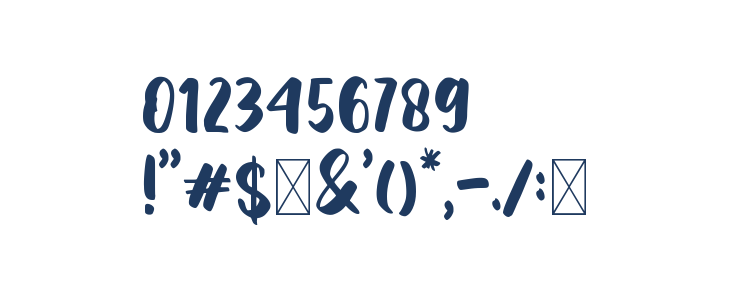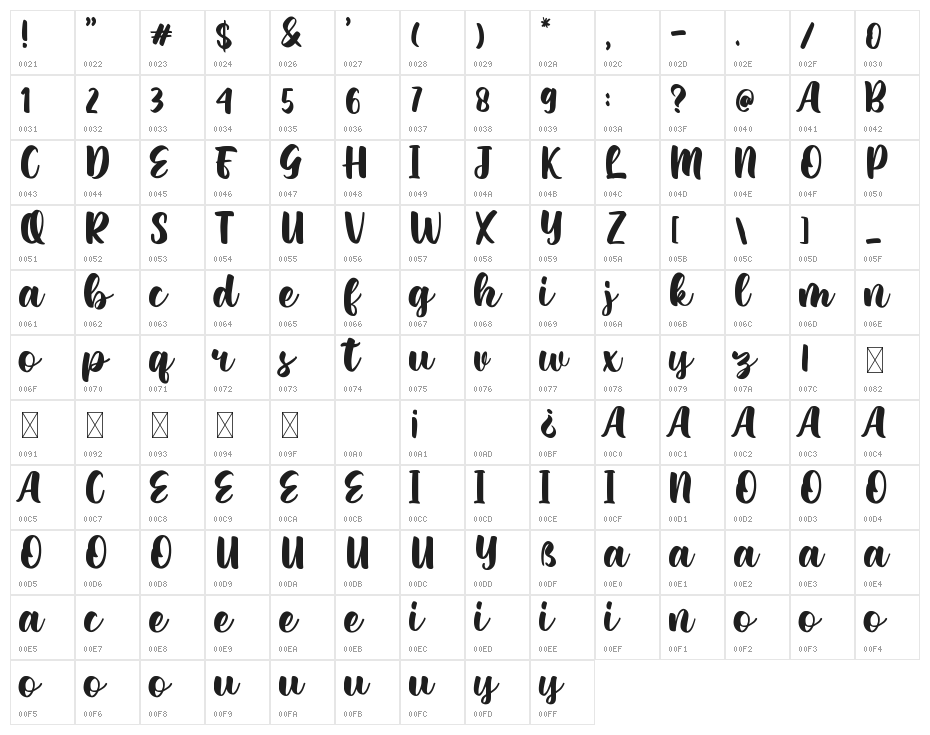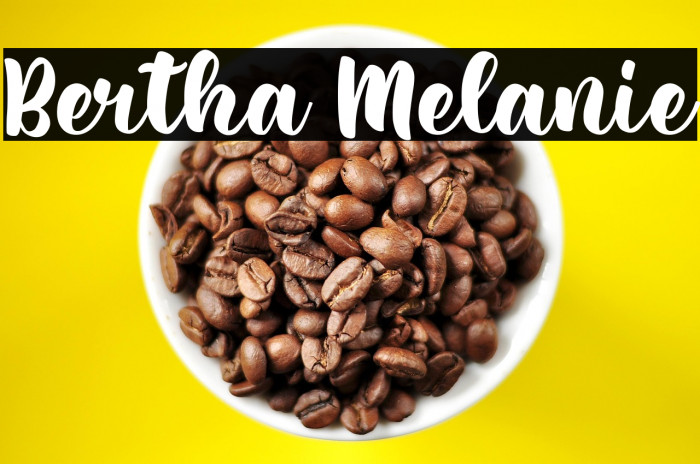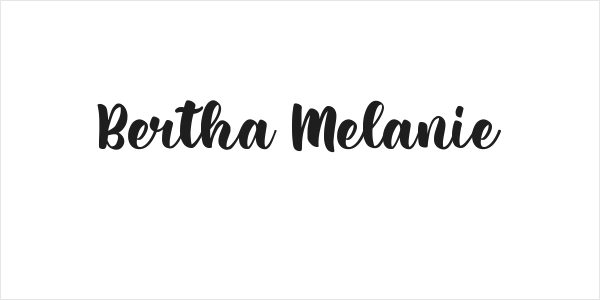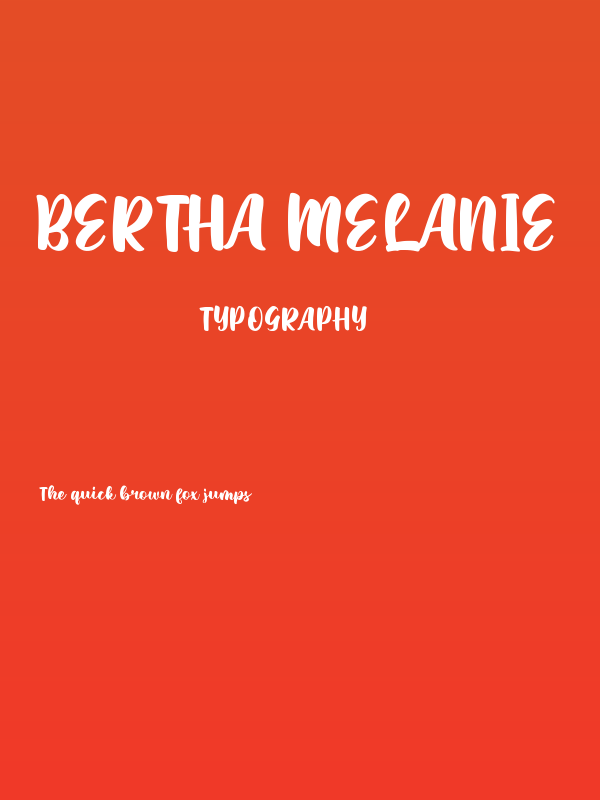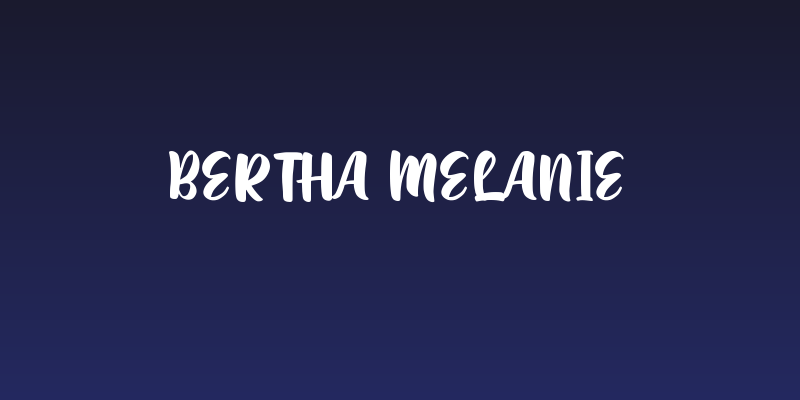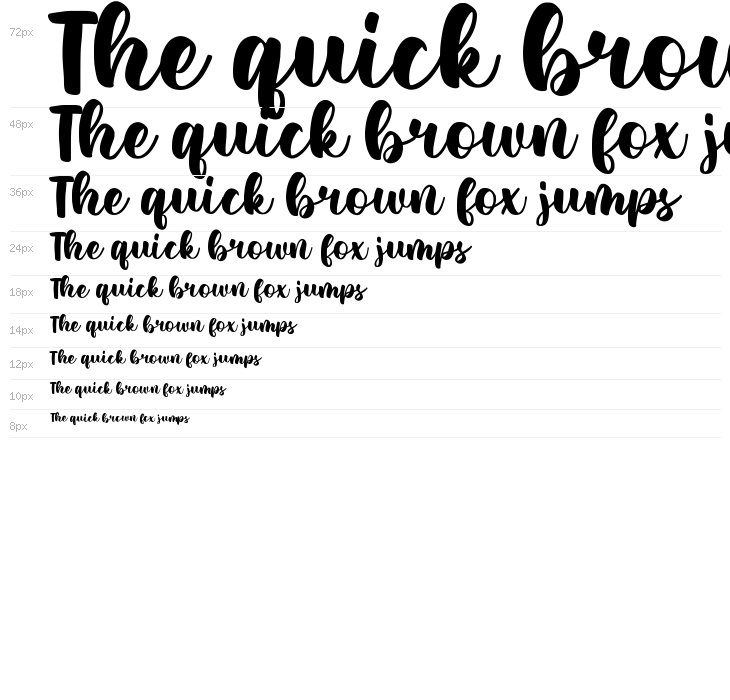
Bertha Melanie Font
Bertha Melanie Description
This font features a bold, expressive script style with a hand-drawn appearance. The characters are fluid and connected, giving a sense of movement and elegance. The uppercase letters are tall and prominent, while the lowercase letters maintain a consistent flow with rounded edges. The numbers and special characters complement the overall style, maintaining the same boldness and fluidity. This font is ideal for creating eye-catching designs that require a personal touch.
| Proposed Projects | Ideal for branding, invitations, greeting cards, and social media graphics. |